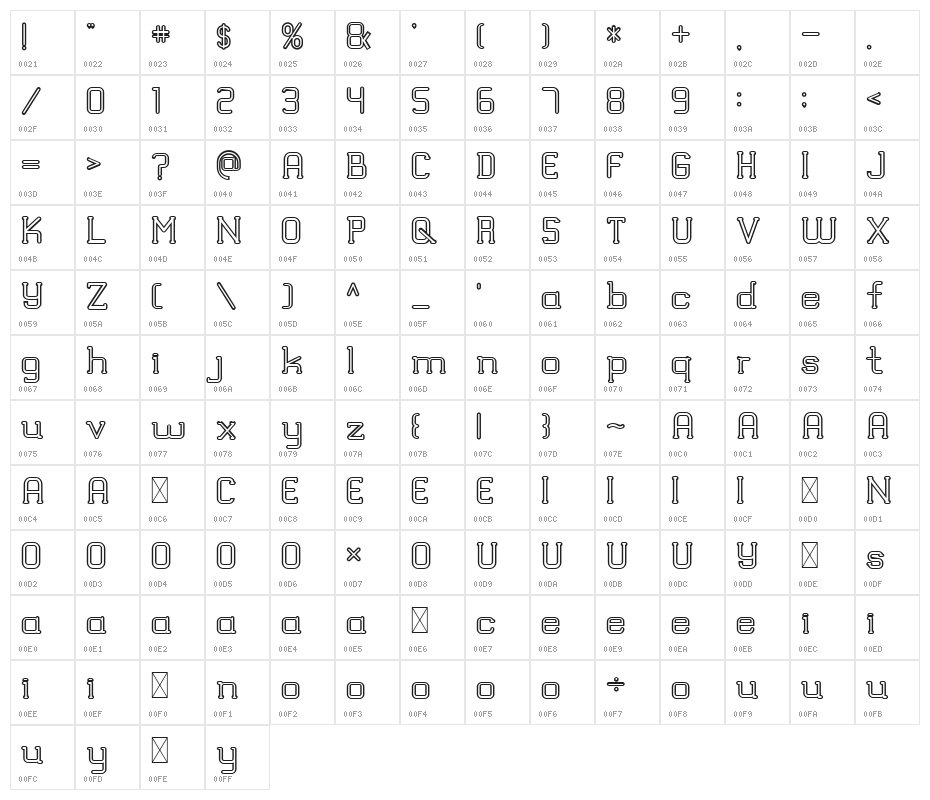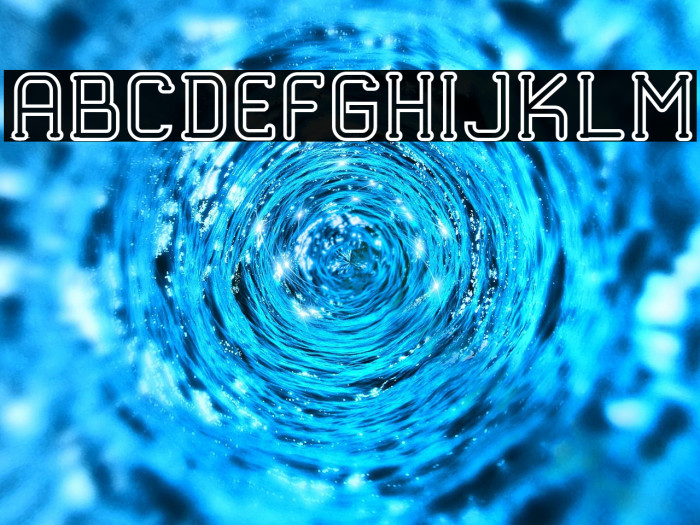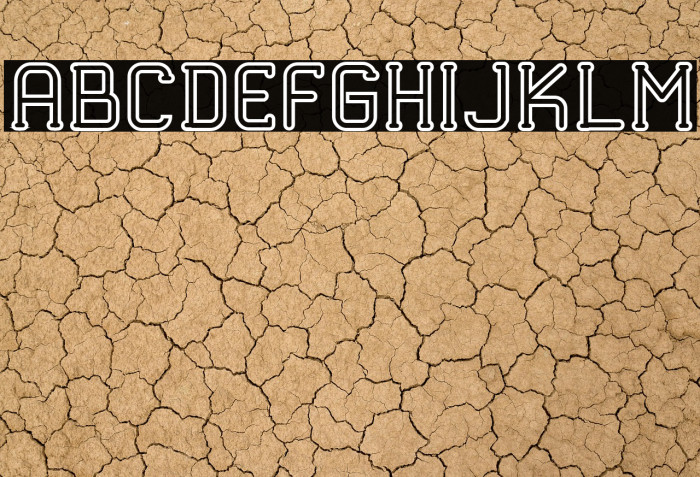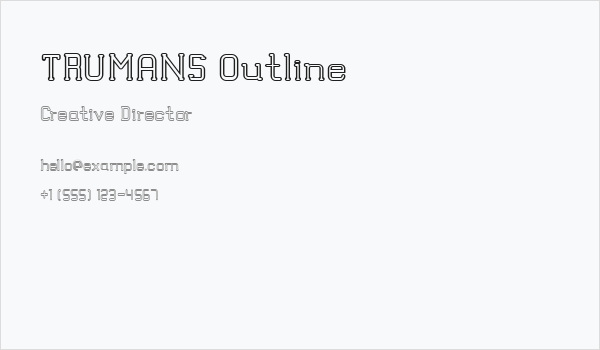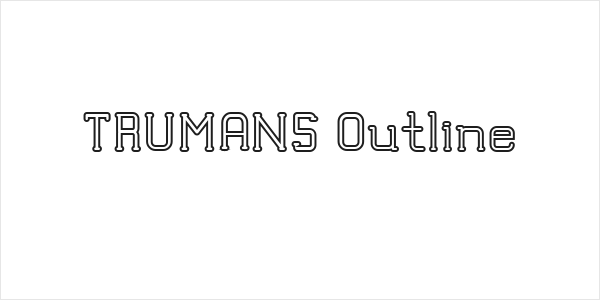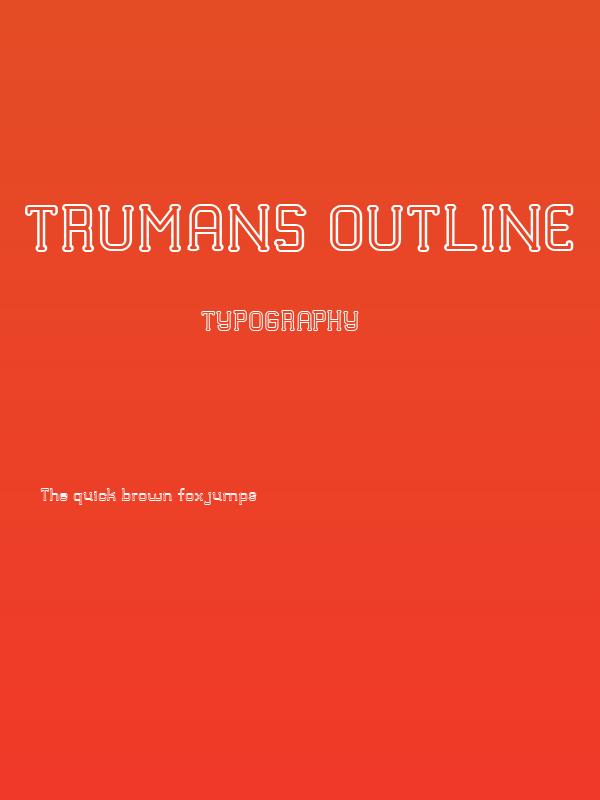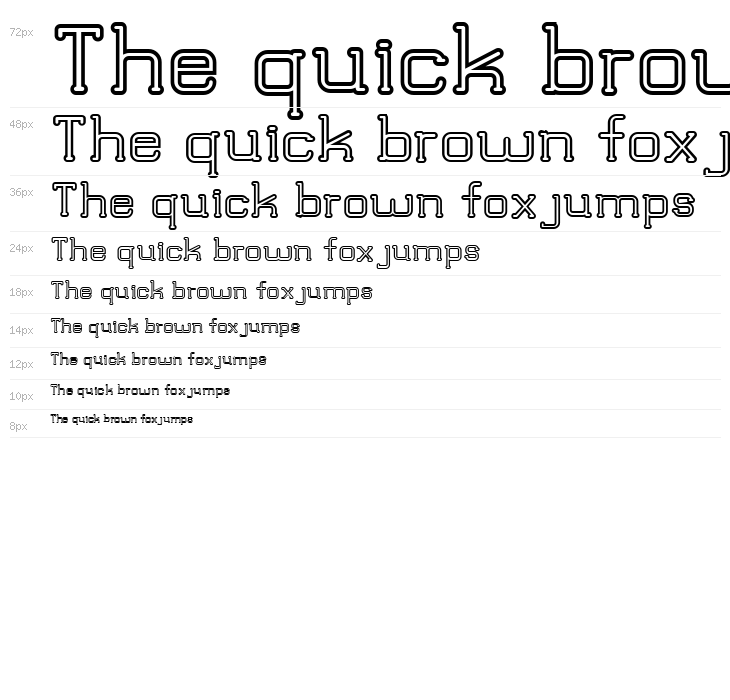
TRUMANS Outline Font
TRUMANS Outline Description
This font features a bold, outlined style with a geometric and structured appearance. Each character is defined by a double-line outline, creating a hollow effect that adds depth and dimension. The uppercase and lowercase letters maintain a consistent height and width, contributing to a uniform look. The numerals and special characters follow the same outlined design, ensuring cohesion across all elements. The font's clean lines and modern aesthetic make it suitable for a variety of design applications, offering a contemporary twist on traditional typography.
| Proposed Projects | Ideal for headlines, posters, logos, and branding materials where a modern and eye-catching look is desired. |